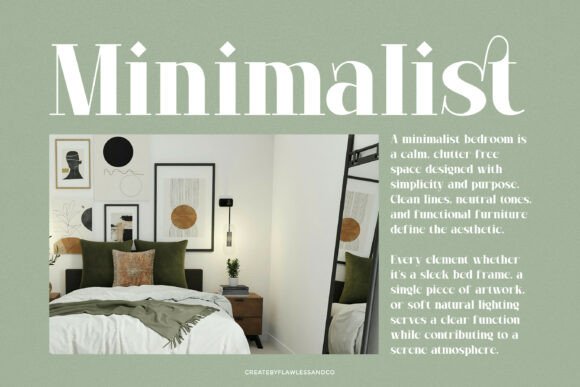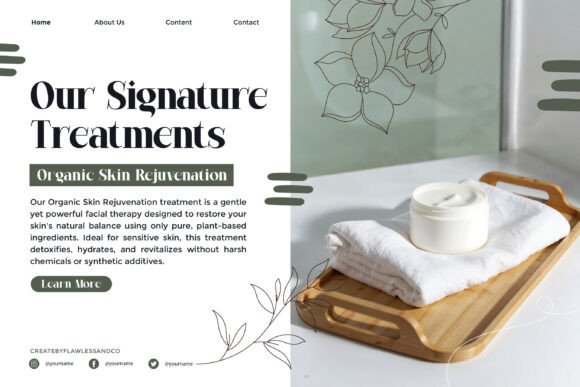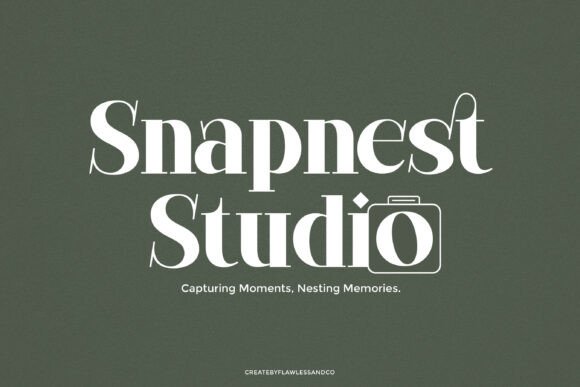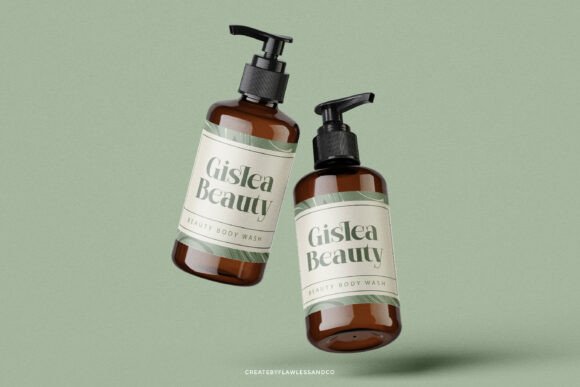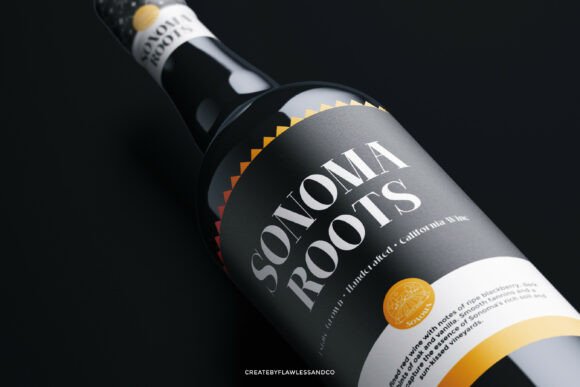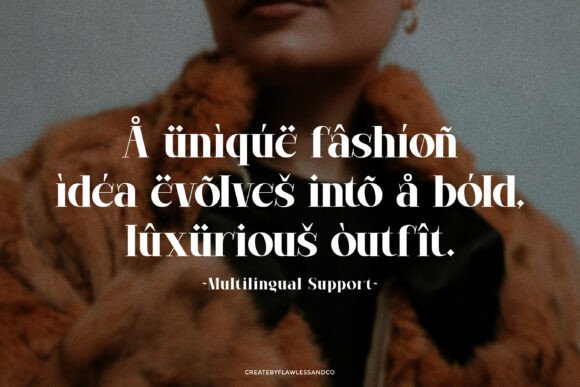
Introduction to Maglicta Font
Maglicta is a striking serif display font that exudes sophistication and confidence.
With its sharp contrasts, elegant curves, and bold presence, Maglicta is made to stand out in any visual composition Perfect for designers seeking a luxurious and timeless typeface, Maglicta blends classic charm with a modern twist.
Key Features of Maglicta Font
Why Choose Maglicta Font?